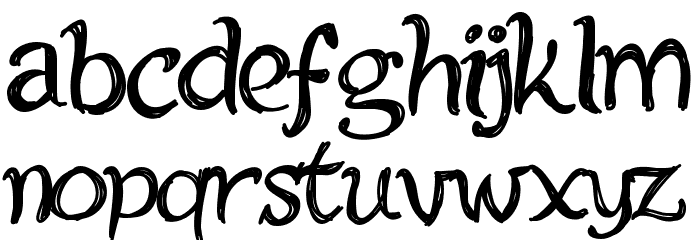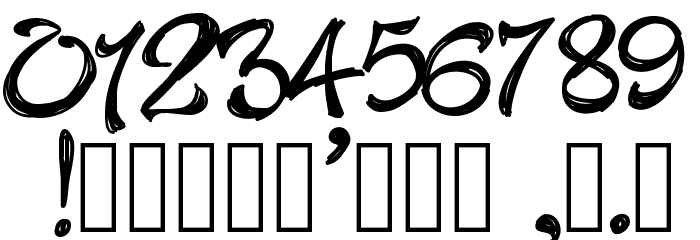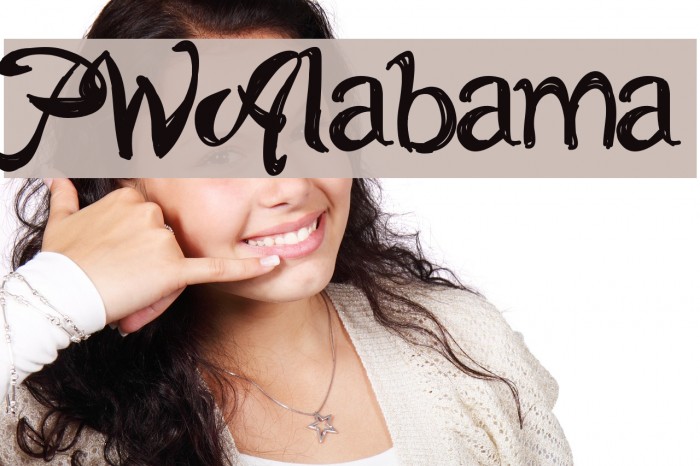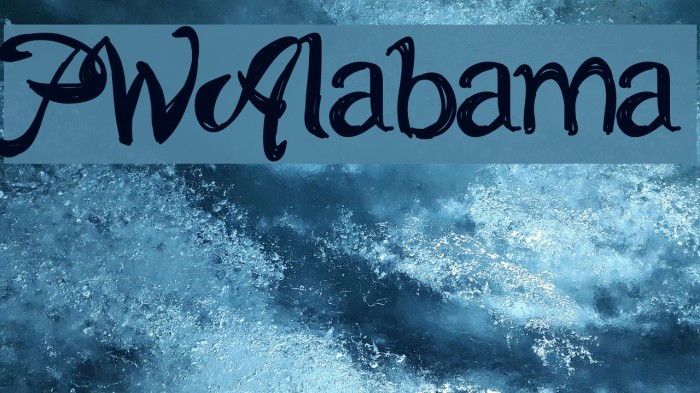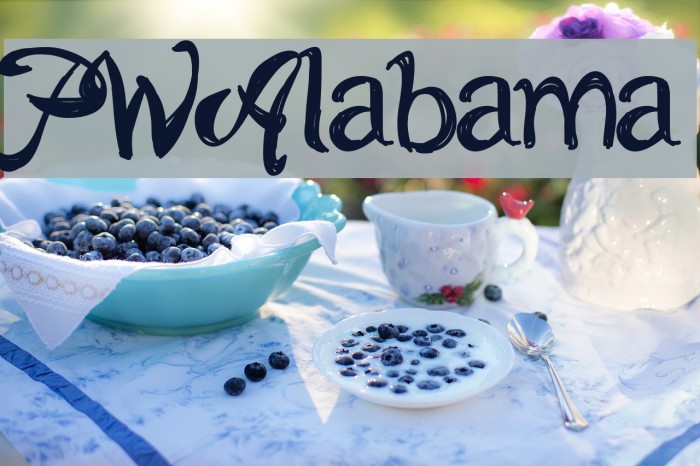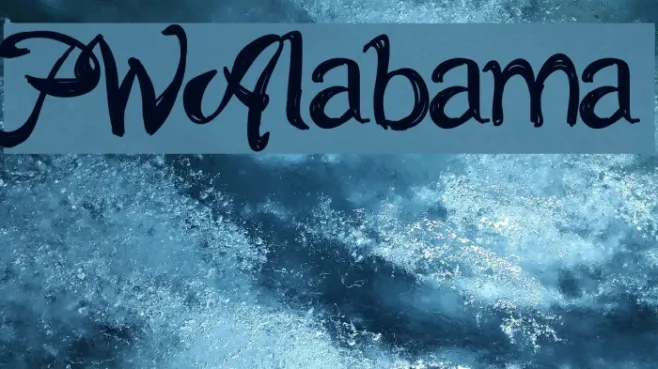
PWAlabama Font
This font features a bold and expressive style with a handwritten appearance. The characters are characterized by their fluid, cursive strokes that create a sense of movement and energy. The uppercase letters are particularly ornate, with intricate loops and swirls that add a decorative flair. The lowercase letters maintain a consistent style, with rounded edges and a slightly condensed form. The numerals are bold and dynamic, matching the overall aesthetic of the alphabet. Special characters are similarly styled, with a playful and artistic touch. This font is ideal for projects that require a personal, artistic touch, such as invitations, greeting cards, or creative branding.
A bold, expressive handwritten font with fluid, cursive strokes and decorative flair.
- Proposed Projects: Ideal for invitations, greeting cards, artistic branding, and creative projects.
- Use Case: Logos, Headlines, Artistic projects